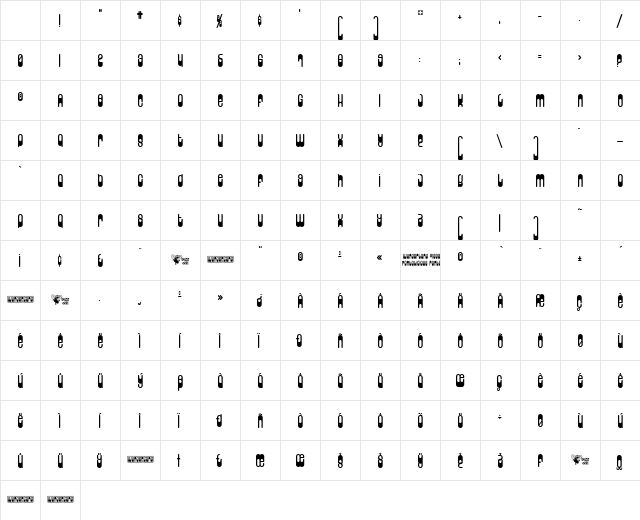
Wunderland Regular Free Font
Wunderland Regular
Wunderland Family
Design Context for Wunderland
Wunderland is a composed and adaptable typeface that performs quietly and consistently across a wide range of design contexts.